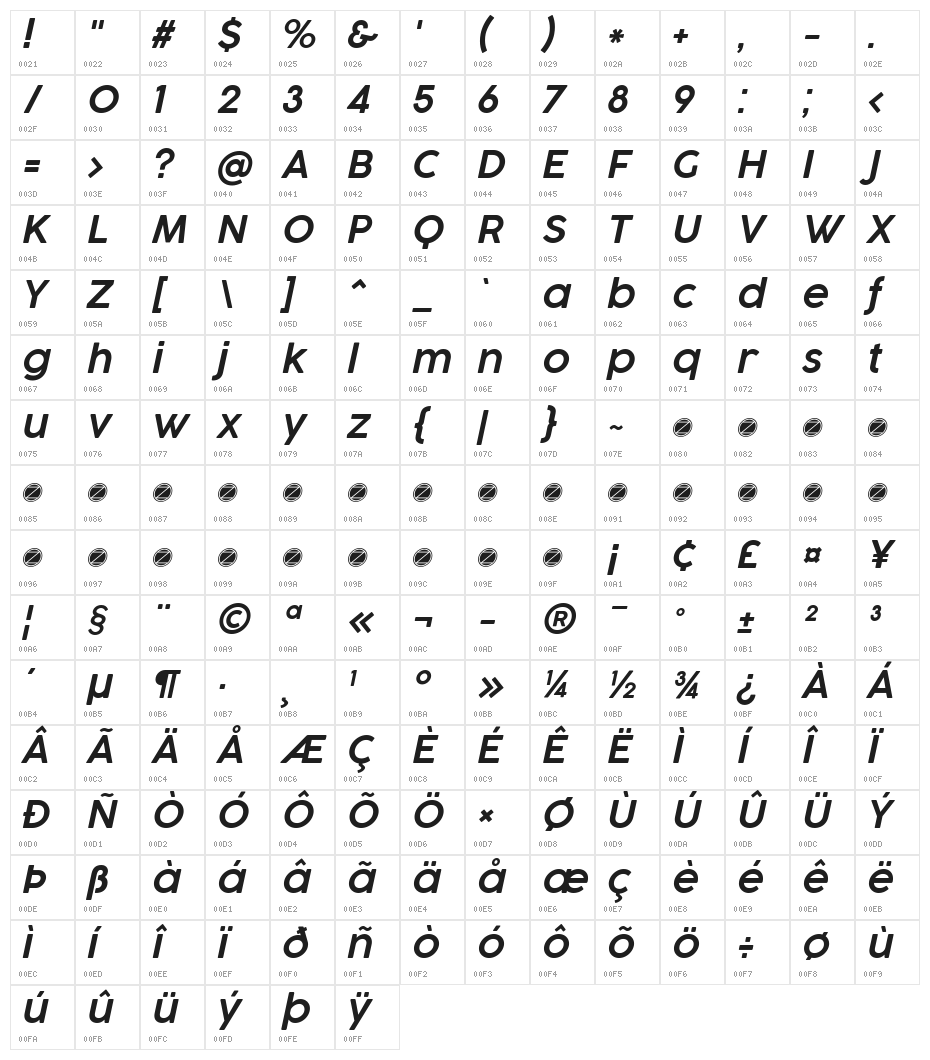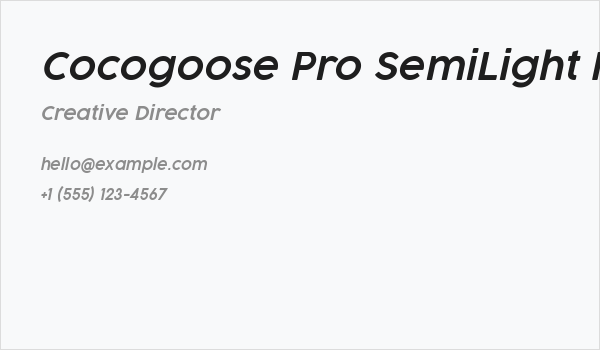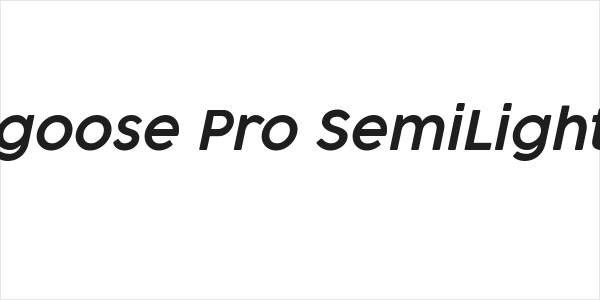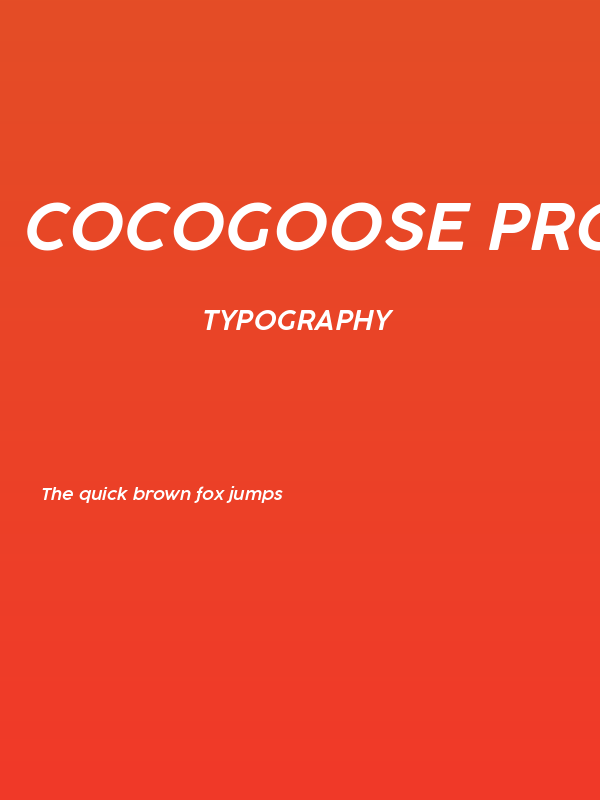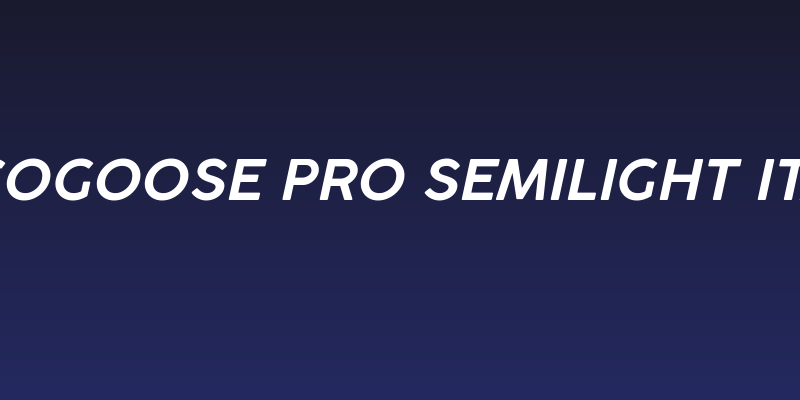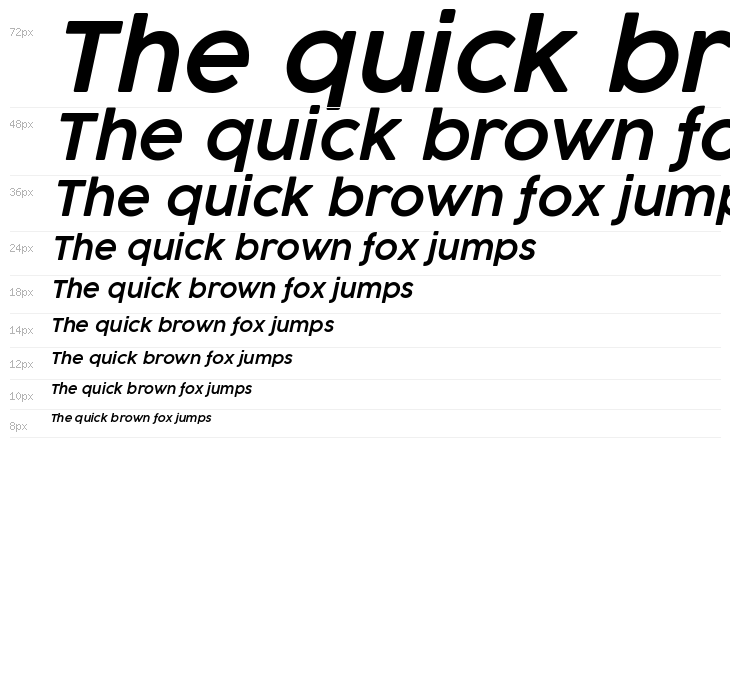
Cocogoose Pro SemiLight Italic Font
Cocogoose Pro SemiLight Italic Description
This font exhibits a sleek and modern aesthetic with a semi-light weight and italic style. The characters are slightly slanted, giving a dynamic and forward-moving appearance. The sans-serif design ensures clean lines and a contemporary feel. The uppercase letters are bold and assertive, while the lowercase letters maintain a consistent flow. Numbers are clear and easily distinguishable, and the special characters are well-integrated, maintaining the font's overall style. The spacing between characters is balanced, providing readability without compromising the compactness of the text.
| Use Case | Headlines, Logos, Digital Media |
| Proposed Projects | Ideal for branding, advertising, and digital media projects where a modern and stylish look is desired. |